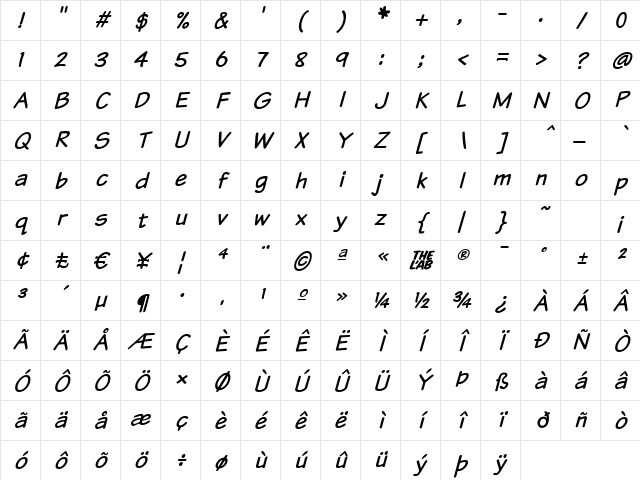
Komika Text Italic
Designer: WolfBainX & Apostrophe
Design Context for Komika Text
Komika Text is a composed and adaptable typeface that performs quietly and consistently across a wide range of design contexts. The slanted form adds forward momentum and visual energy.